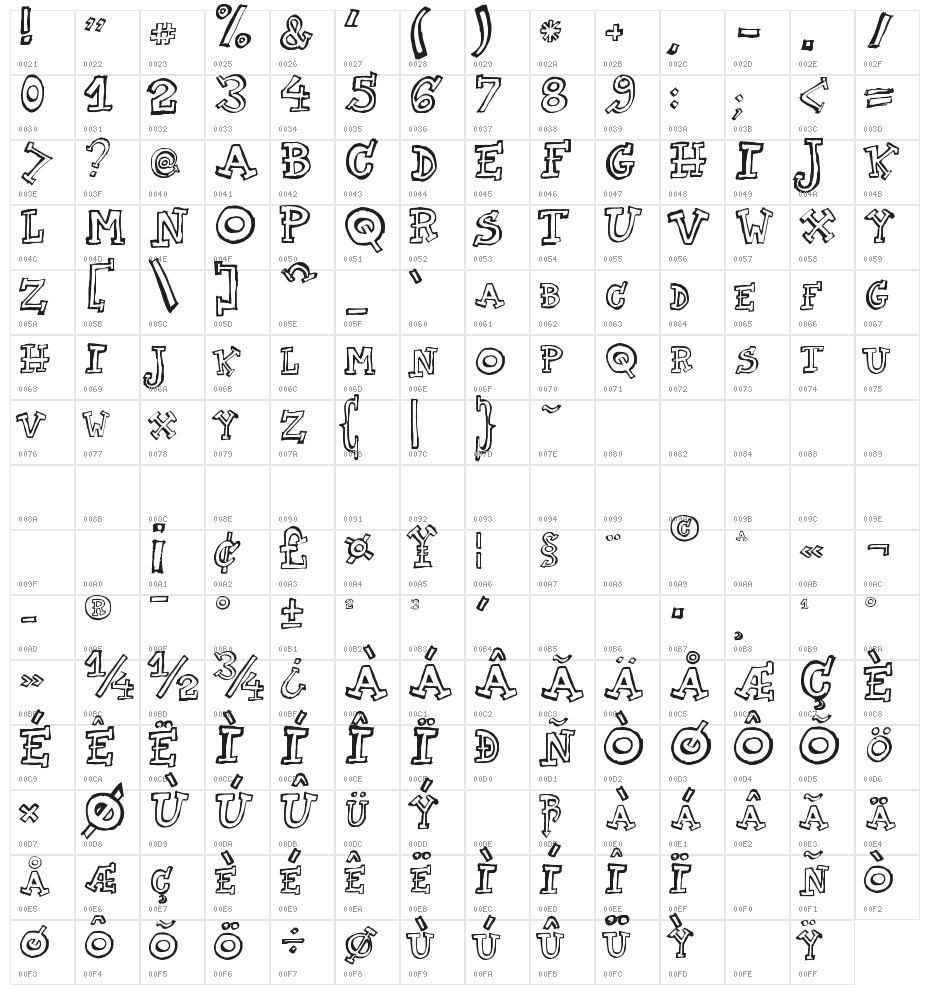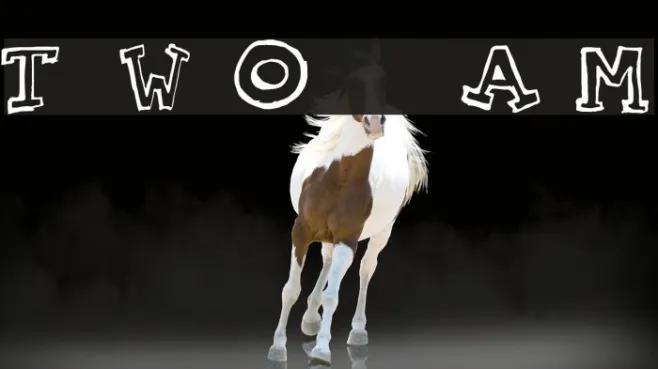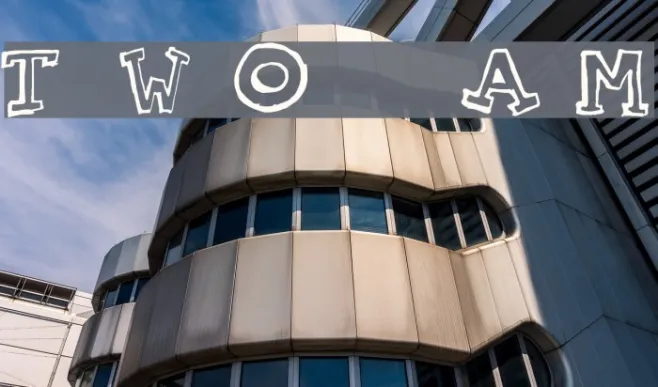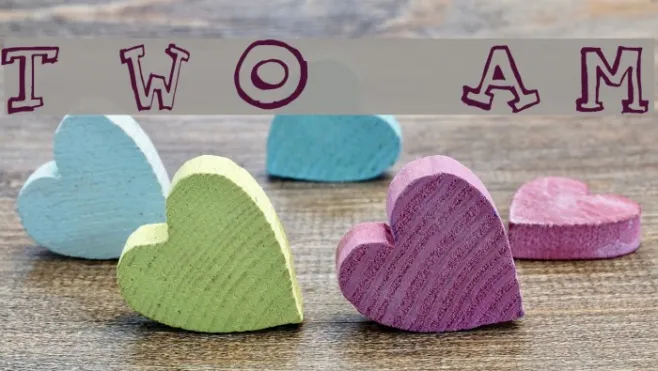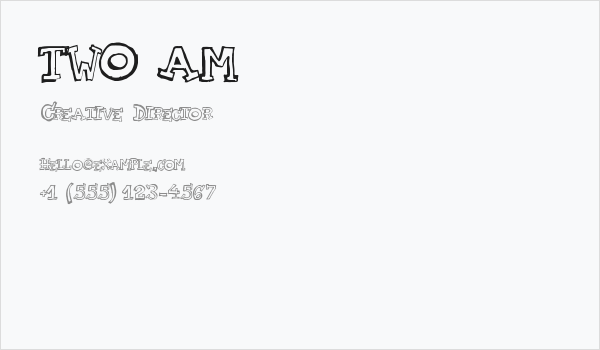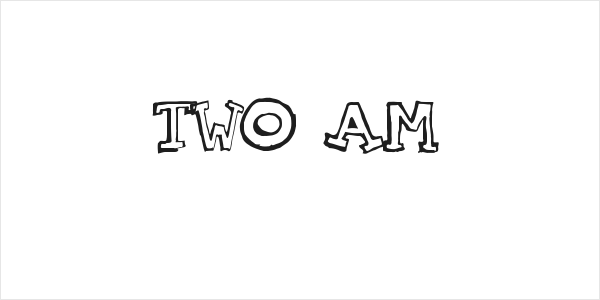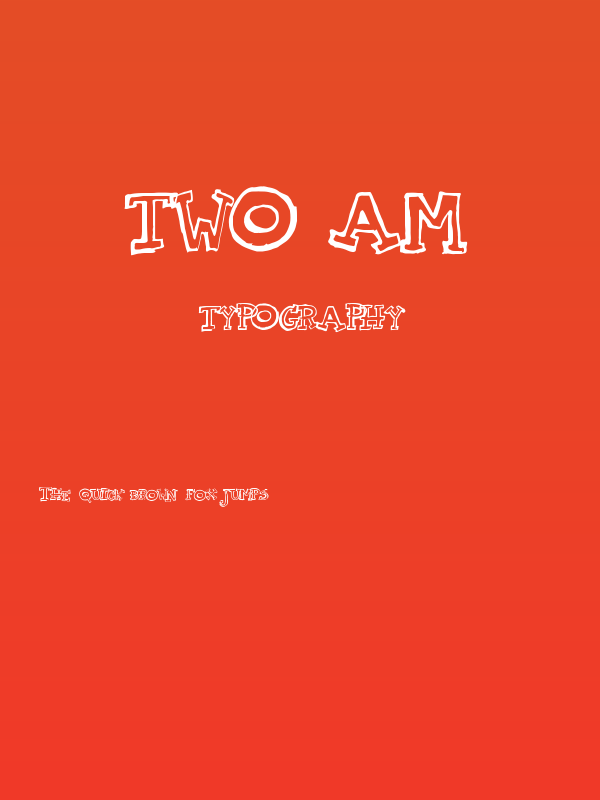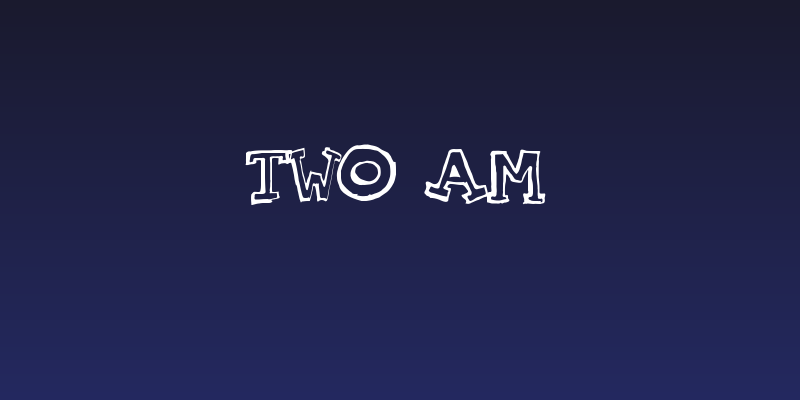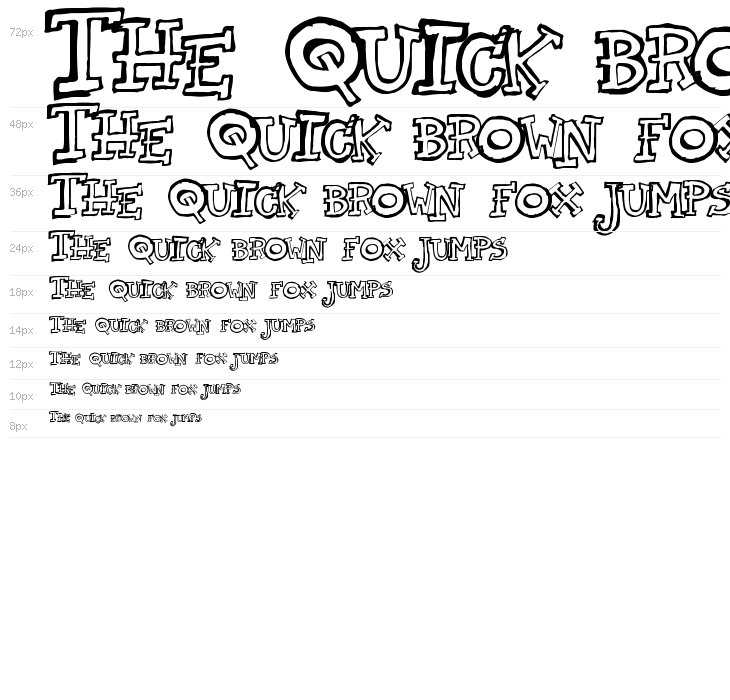
TWO AM Font
TWO AM Description
This font features a playful and quirky design with a hand-drawn aesthetic. Each character is outlined with a bold, irregular stroke, giving it a cartoonish and whimsical appearance. The letters are slightly tilted and vary in size, adding to the casual and informal feel. The numbers and special characters follow the same style, maintaining consistency throughout the set. This font is ideal for projects that require a fun and lighthearted touch, such as children's books, comic strips, or playful branding materials.
| Overall Style | Whimsical, Playful |
| Proposed Projects | Ideal for children's books, comic strips, playful branding, and casual invitations. |